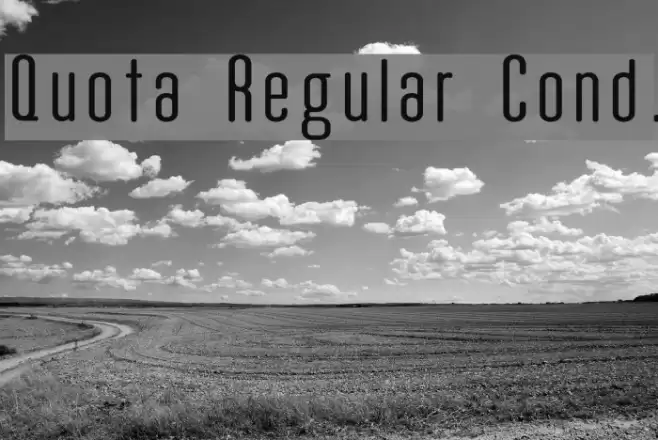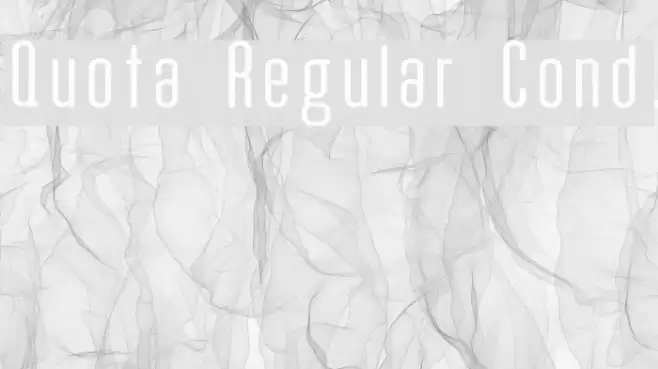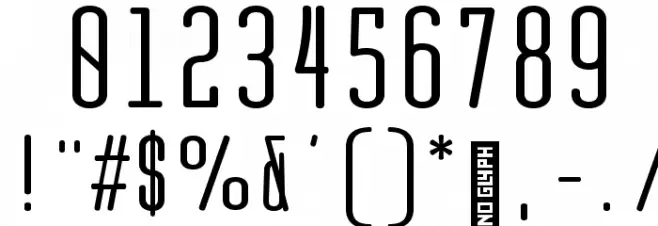
Quota Regular Cond. Font
Quota Regular Cond. Description
This font features a modern and clean design with a condensed structure, characterized by its tall and narrow letterforms. The strokes are consistent in width, providing a uniform appearance across all characters. The rounded edges soften the overall look, making it approachable yet professional. The uppercase letters are slightly taller than the lowercase, maintaining a balanced proportion. The numerals are clear and distinct, ensuring readability. Special characters are well-integrated, matching the font's sleek aesthetic.
A modern, condensed font with uniform strokes and rounded edges from Uncategorized fonts.
- Proposed Projects: Ideal for branding, signage, and editorial design where a modern and clean look is desired.
- Use Case: Headlines, Logos, Signage